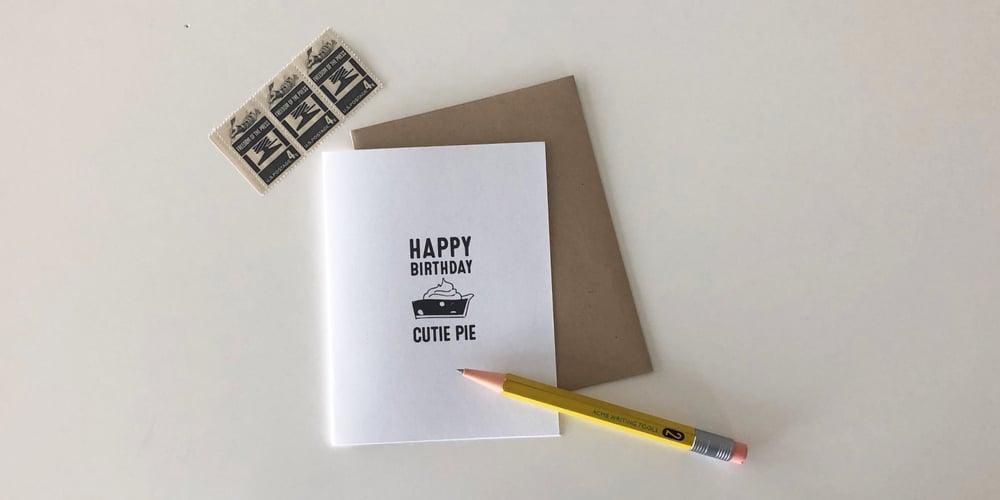
Food Doodles Too
Food Doodles Too font
Food Doodles Too Font Family was designed by Rae Kaiser and published by Outside the Line. Food Doodles Too contains 1 styles and family package options. Food Doodles Too is a 31-picture clipart font of food. Use them as dingbats or enlarge the small pictures and use them as clipart. Lots to choose from… from soup to nuts OK no nuts. But there is pizza, pasta, soup, eggs, sushi, sandwich, hot dog, hamburger, fish, kabobs, toast, breads, cheese, pickles, shrimp, soufflé, and desserts galore… cake, pie, cookie, cupcake, trifle, sundae, banana split, milk, tea and more. Food Doodles Too works nicely with Coffee & Tea Doodles. If you need some fancy cakes check out Party Doodles. All in the same line drawing style to mix and match.